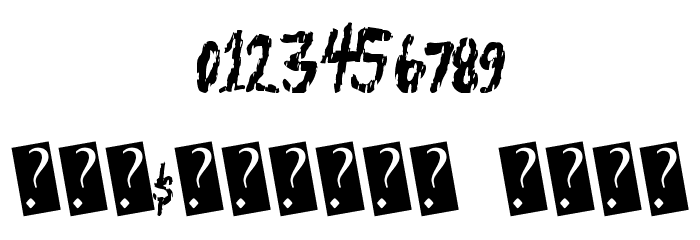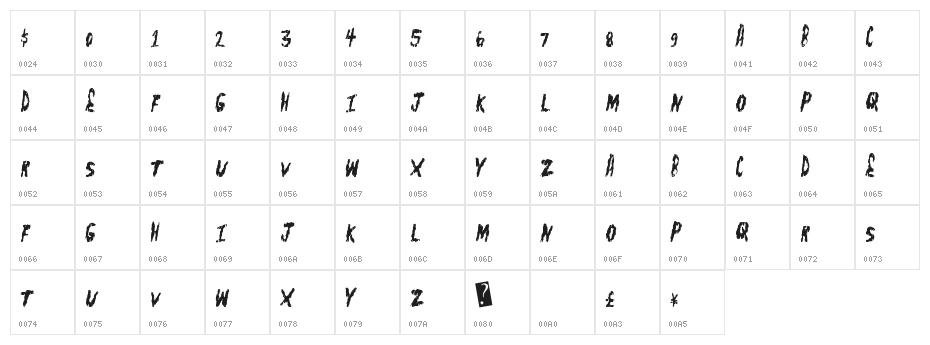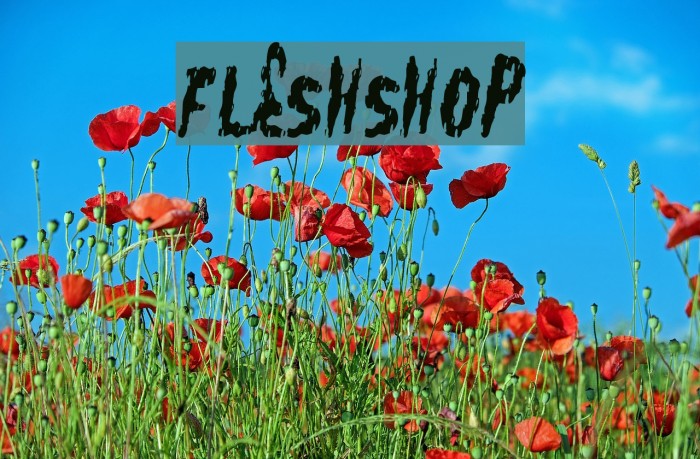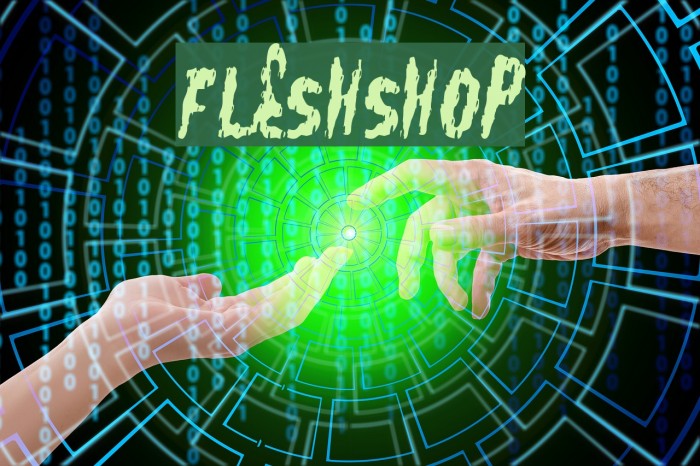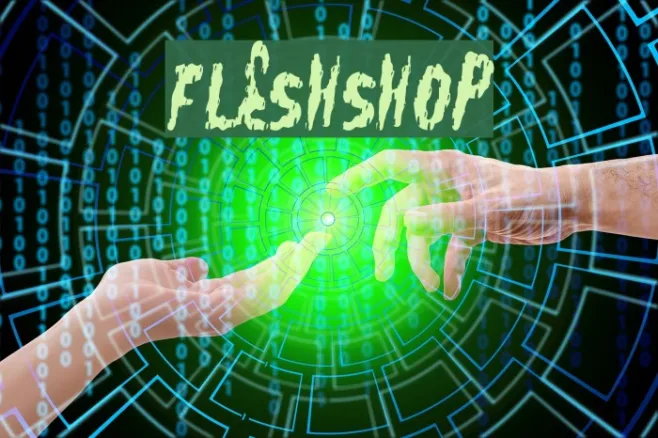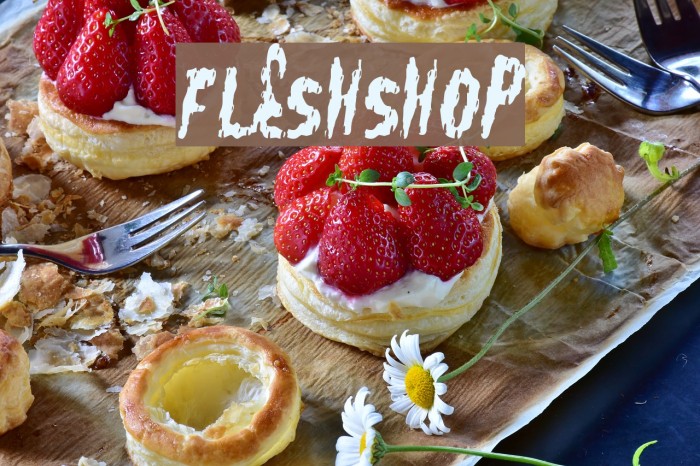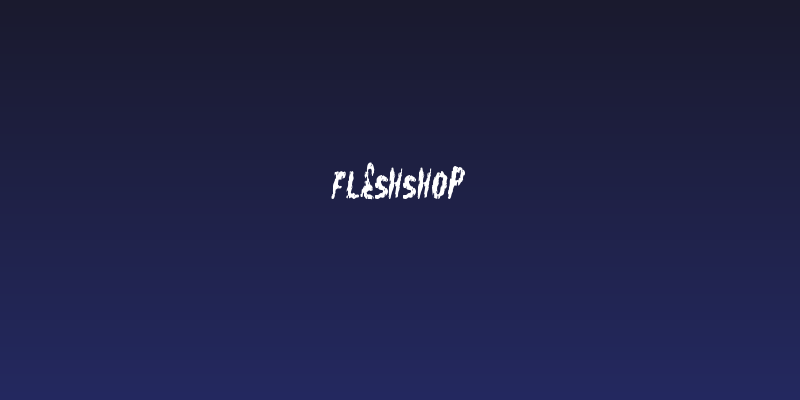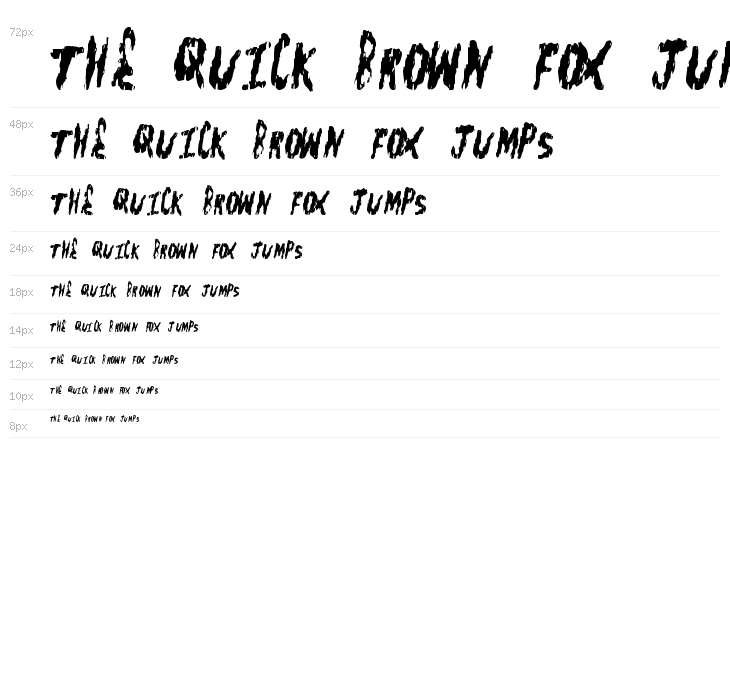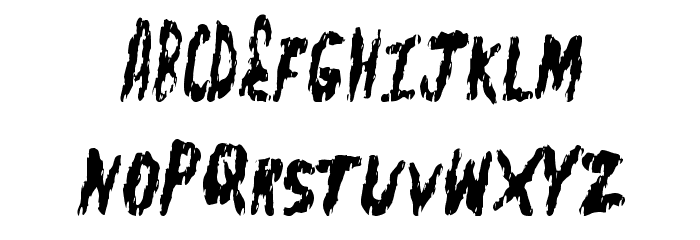
FleshShop Font
FleshShop Description
This font features a distressed, grunge style that gives the impression of being torn or eroded. The characters have an irregular, jagged edge, creating a sense of chaos and movement. The uppercase and lowercase letters maintain a consistent design, with each character appearing unique due to the uneven edges. Numbers and special characters follow the same aesthetic, enhancing the overall theme. This font is highly decorative and is designed to capture attention with its bold and dynamic appearance.
| Proposed Projects | Ideal for horror-themed posters, album covers, Halloween invitations, or any project requiring a bold, edgy look. |